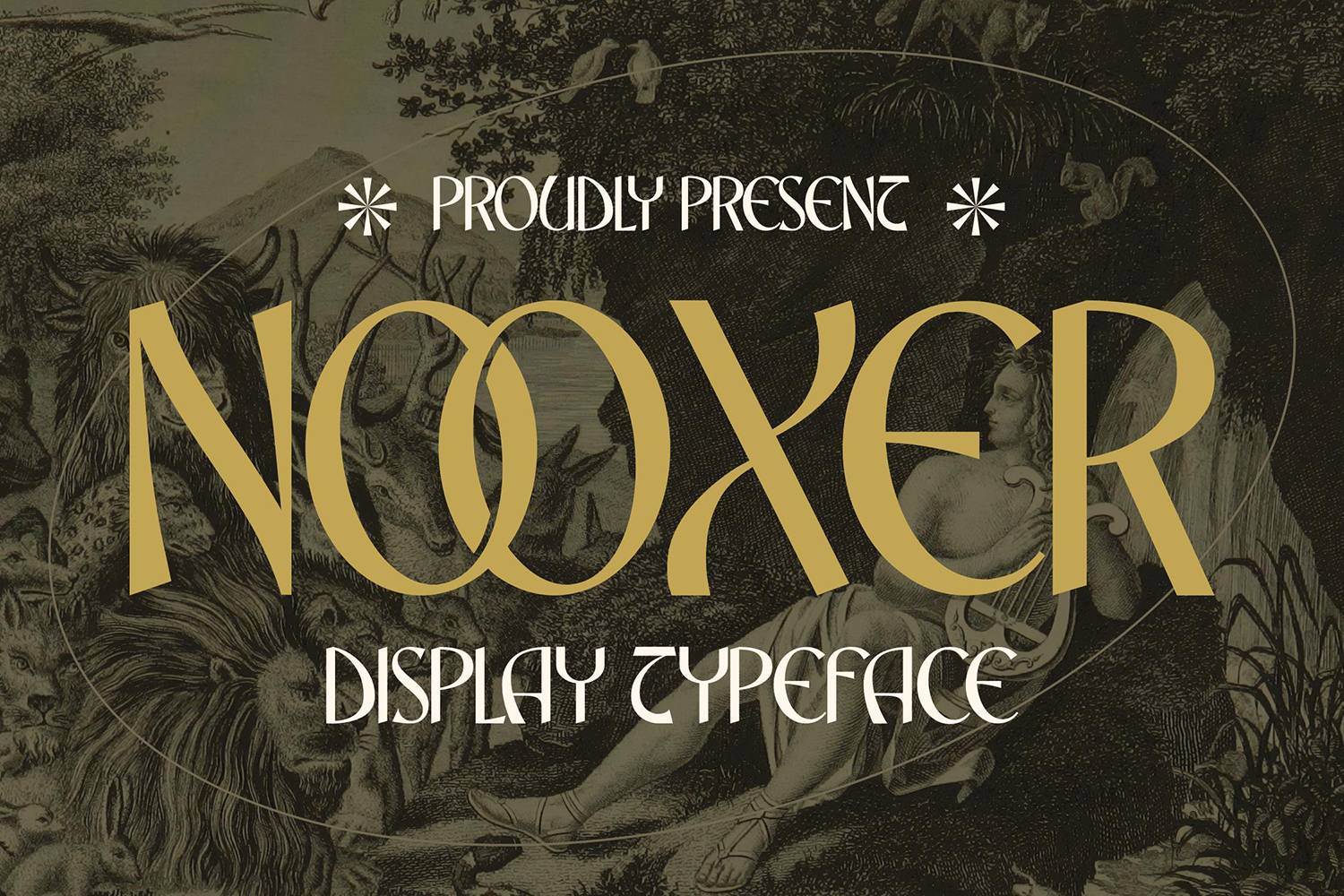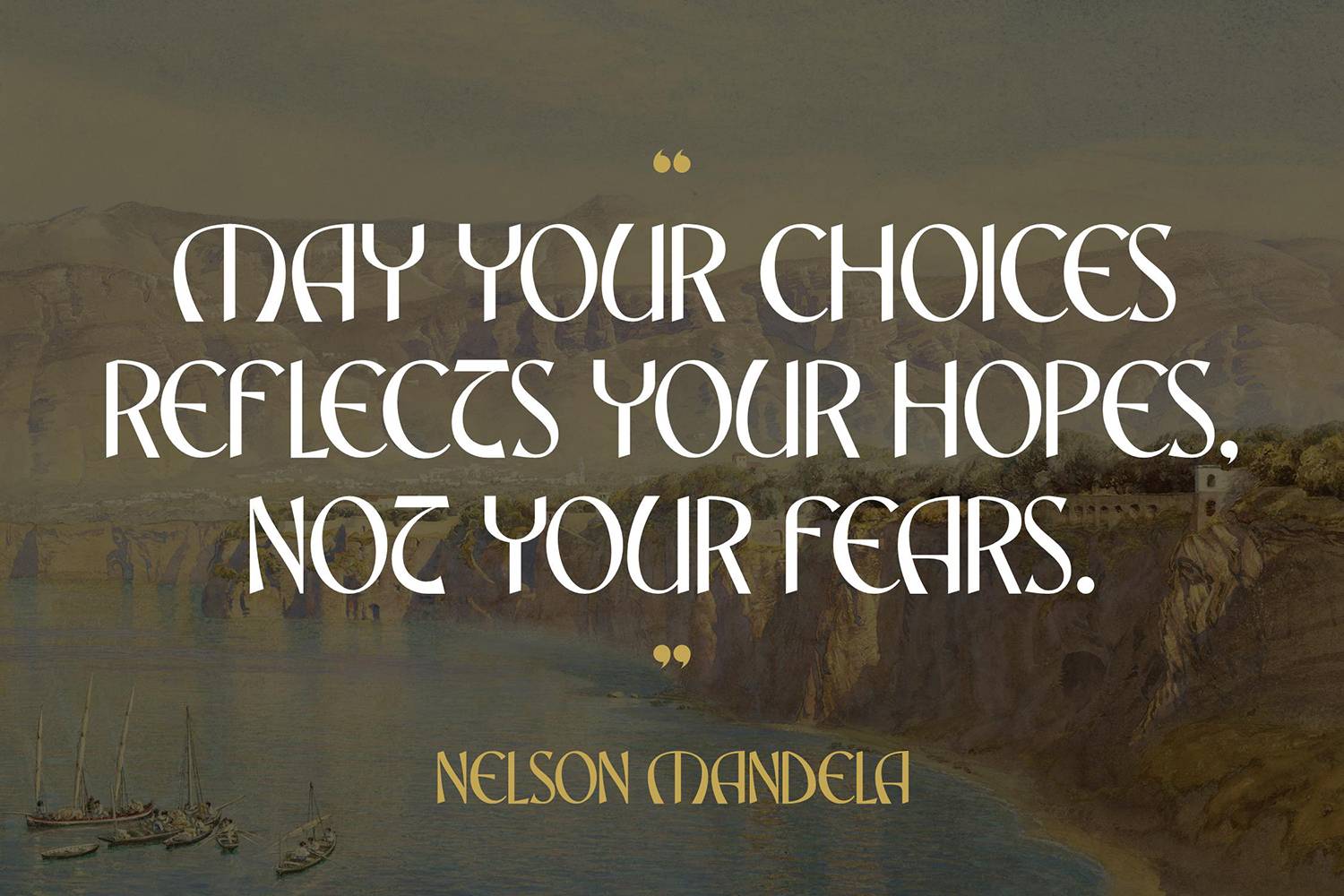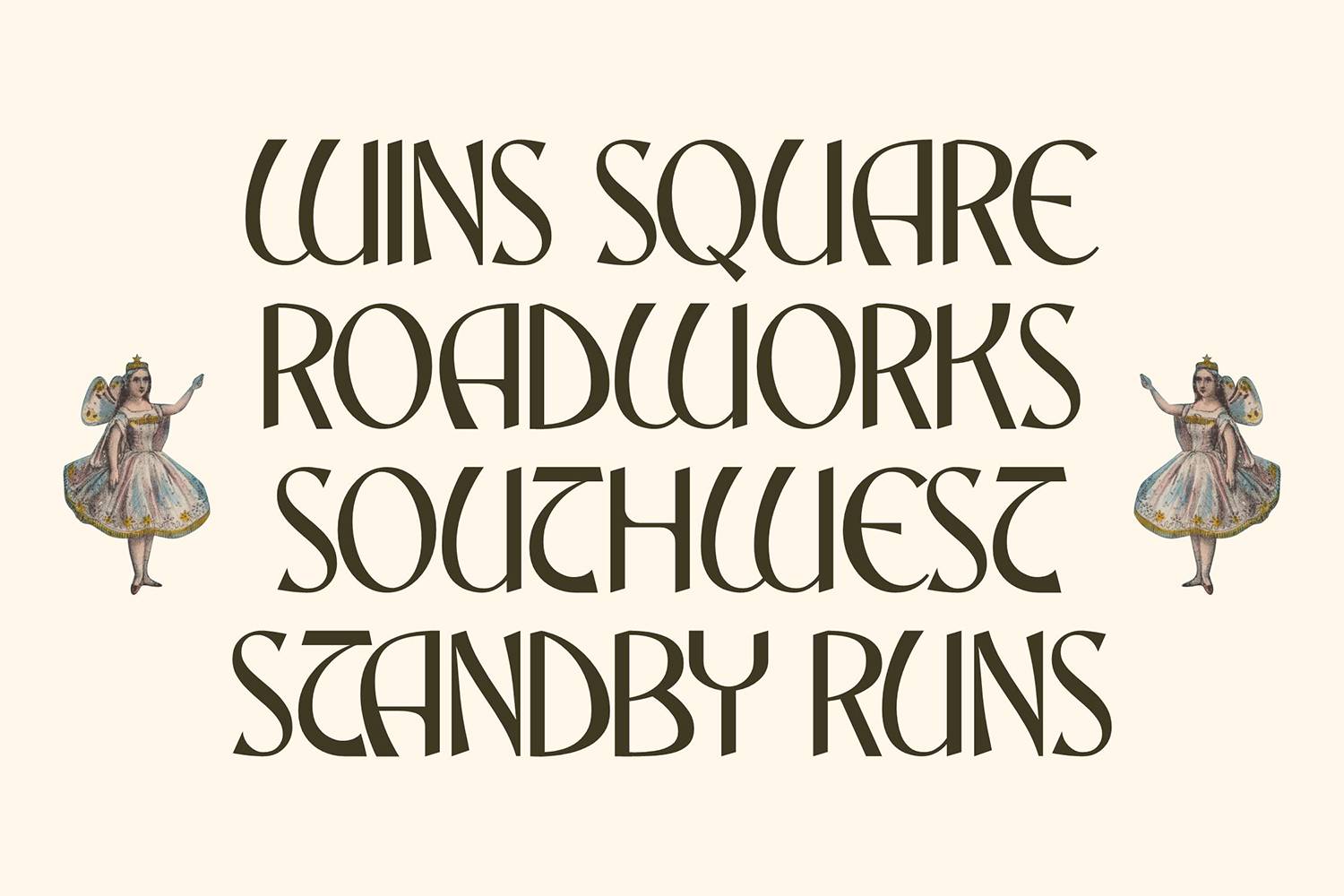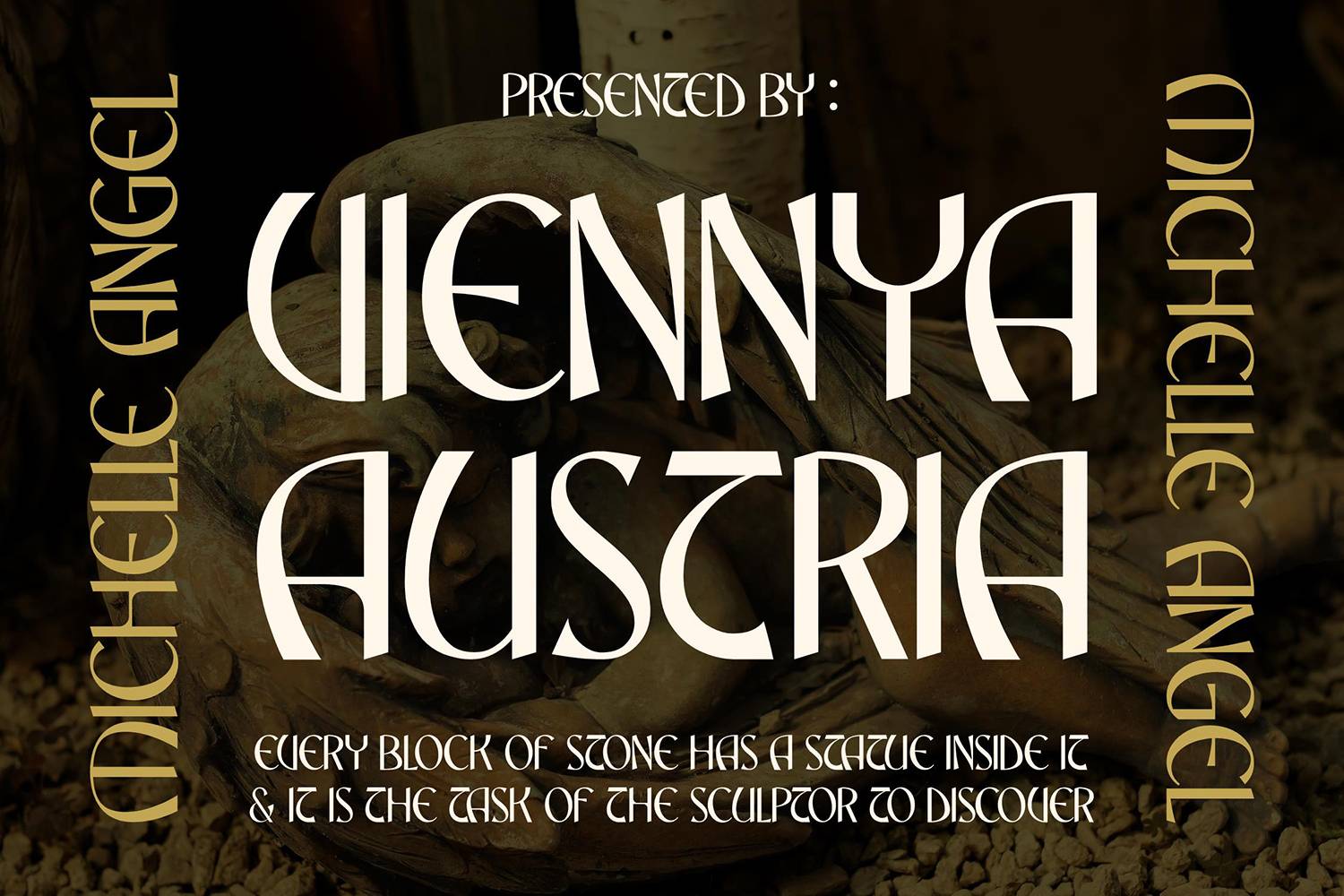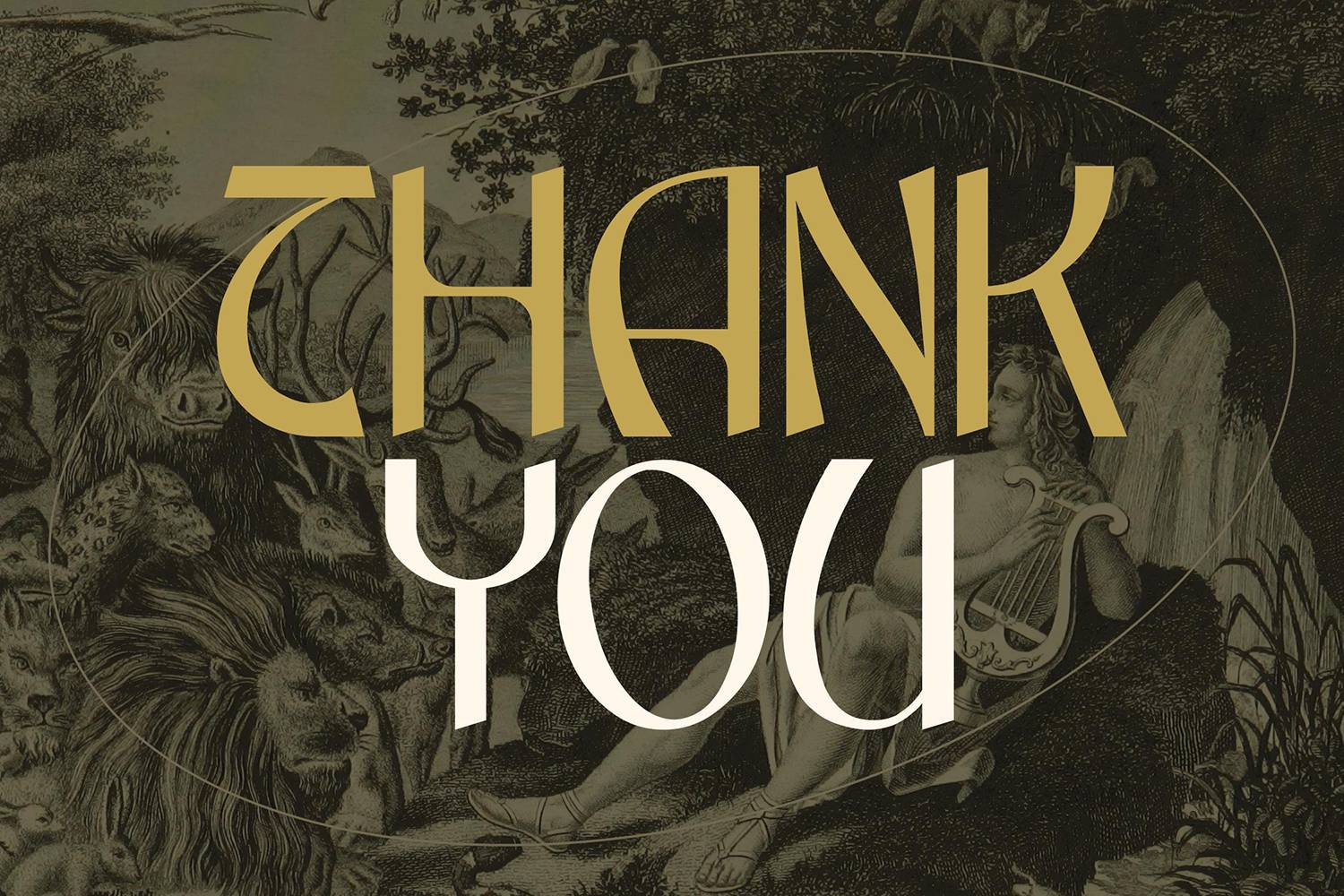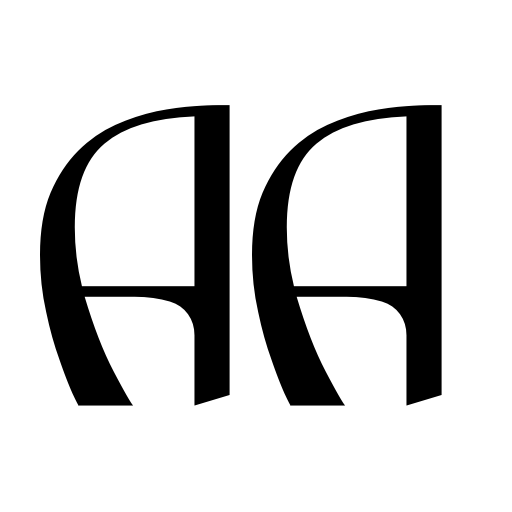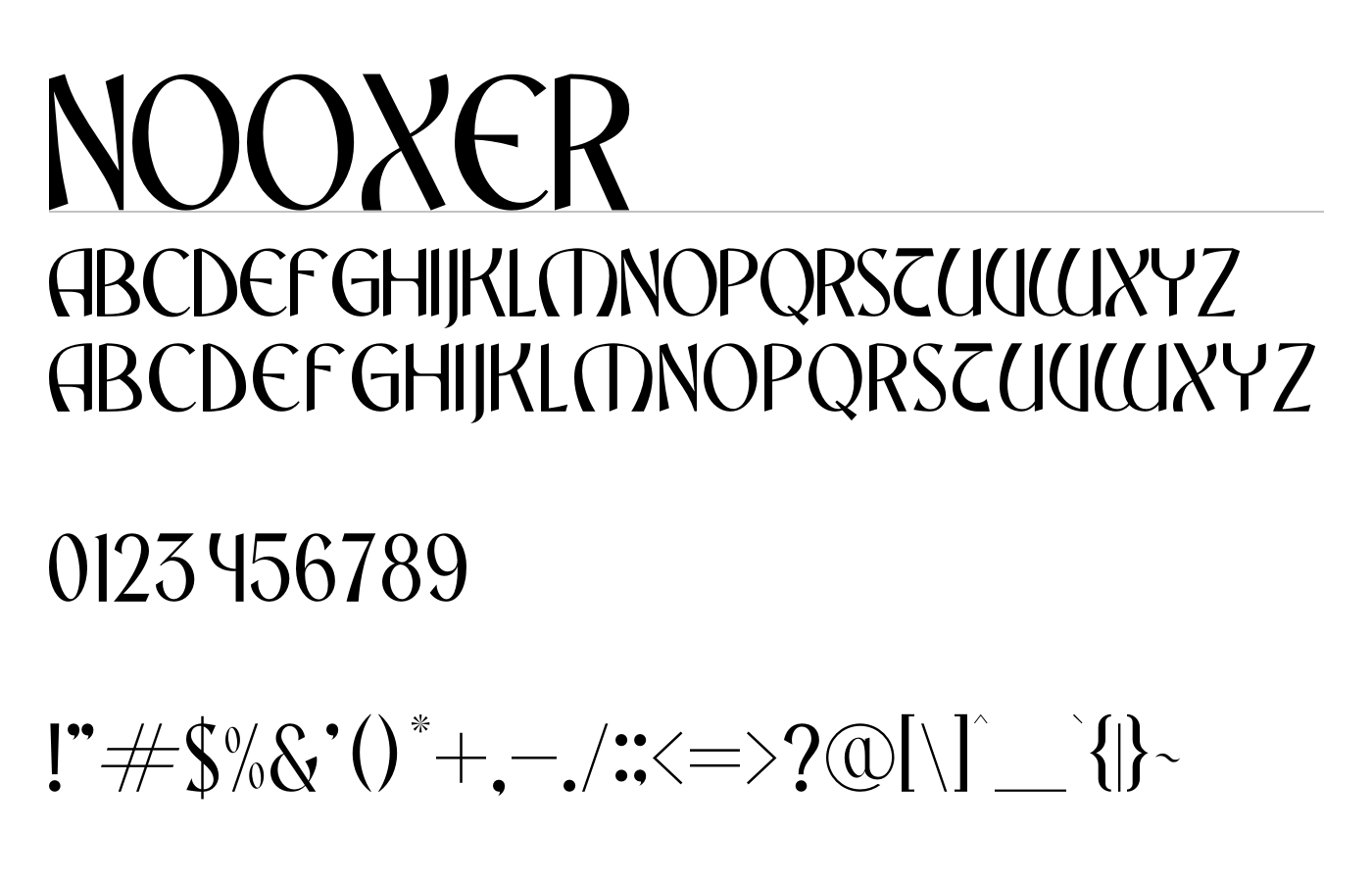
Nooxer is a stylish serif font with a modern twist, featuring elegant, sharp strokes and unique curved terminals that add a distinctive, artistic flair. Its medium weight and moderate contrast give it a refined yet dynamic look, making it perfect for fashion, luxury branding, editorial headlines, and creative graphic projects where a bold but sophisticated statement is desired.
Nooxer Font